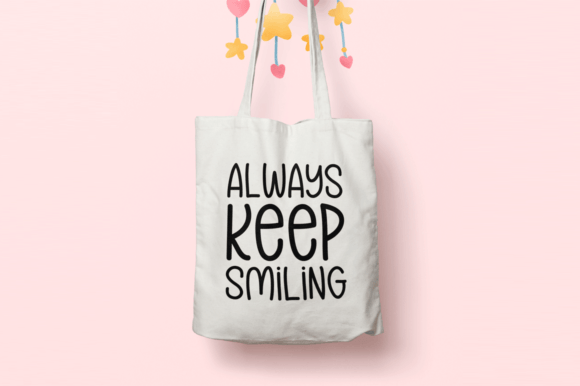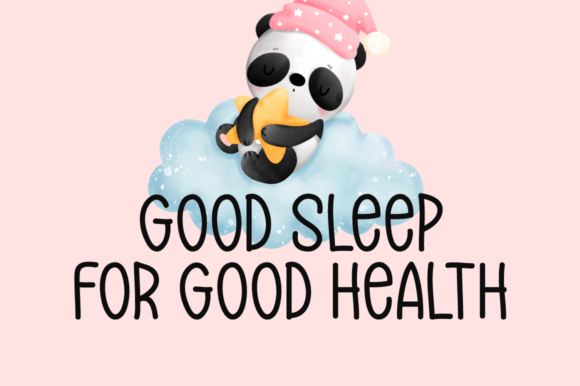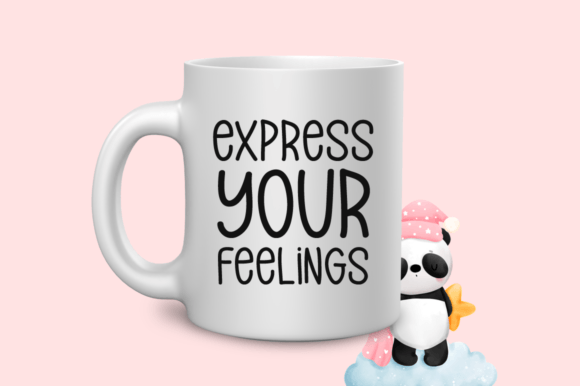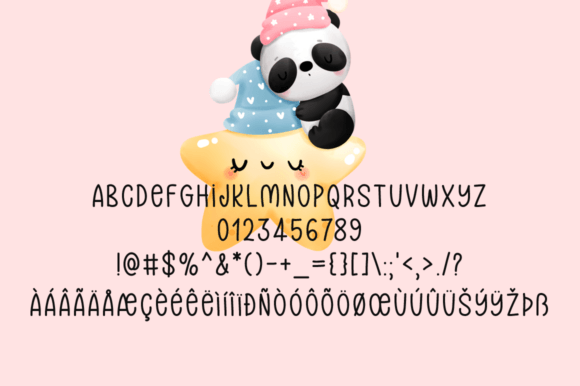
Introduction to Sleeping Baby Panda Font
Sleeping Baby Panda is a unique and playful handwritten font.
This font is a great choice for a wide variety of contexts It looks stunning on thank you cards, quotes, greeting cards, logos, business cards, and every other design which needs a creative spark.
Key Features of Sleeping Baby Panda Font
Why Choose Sleeping Baby Panda Font?